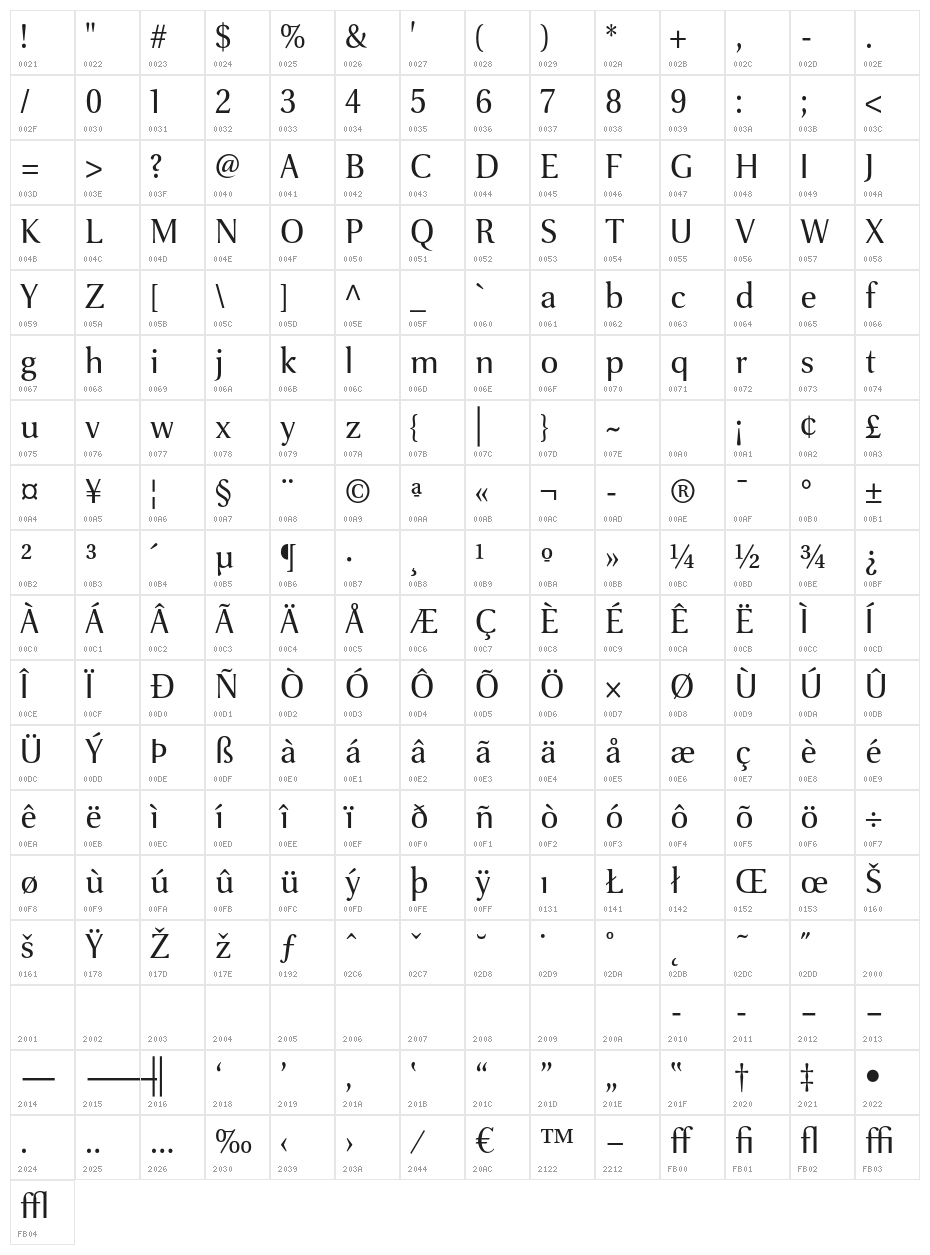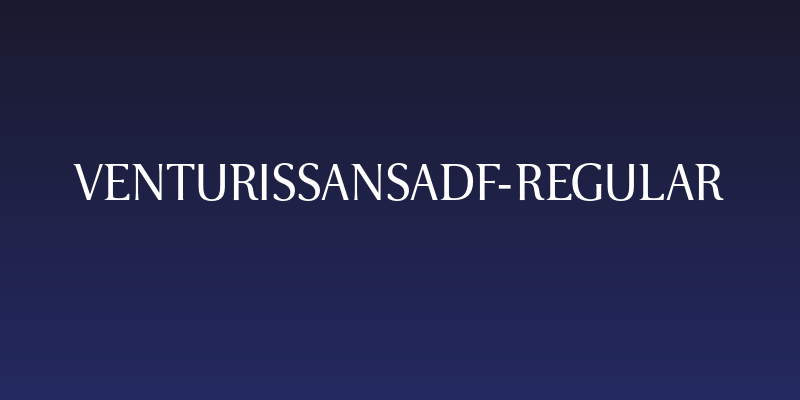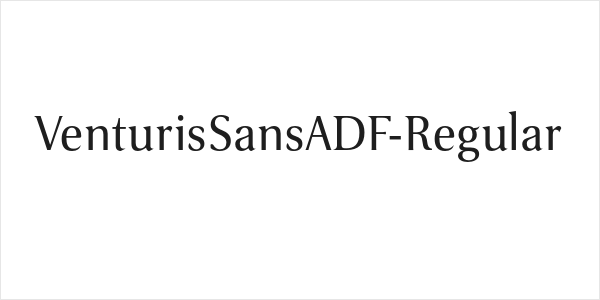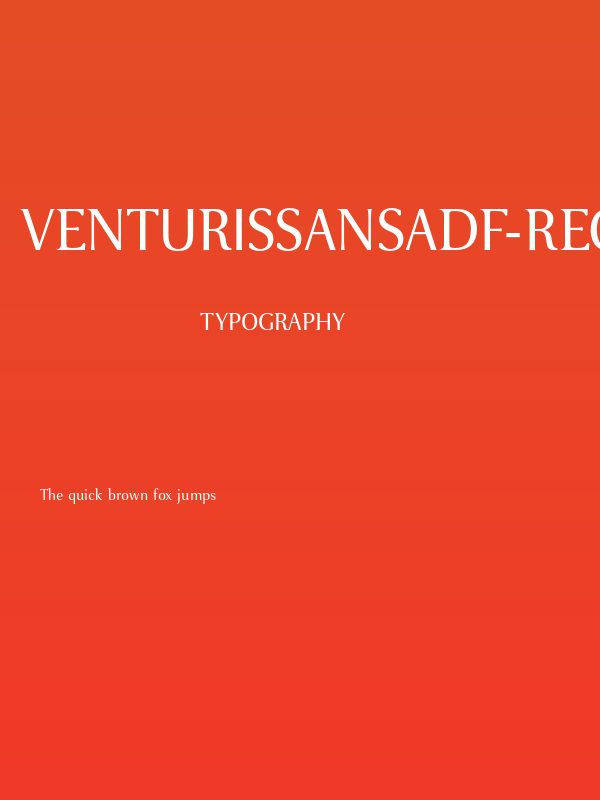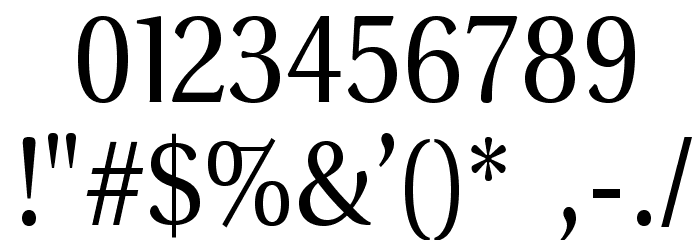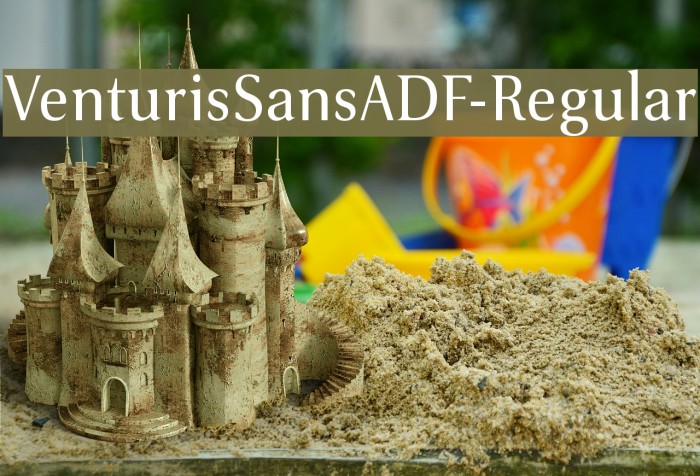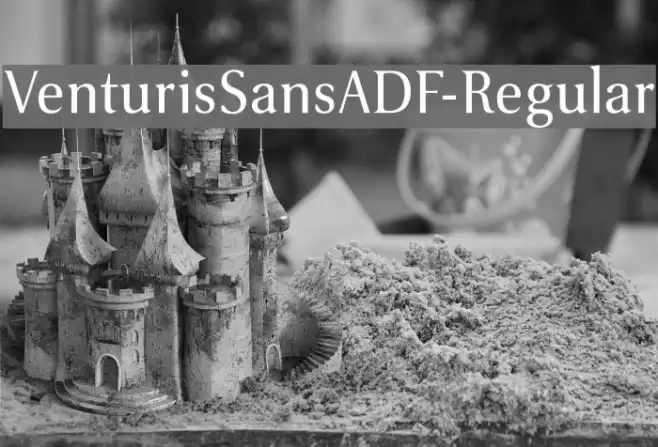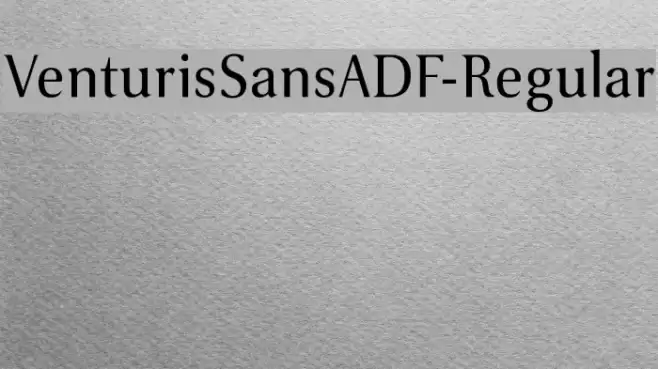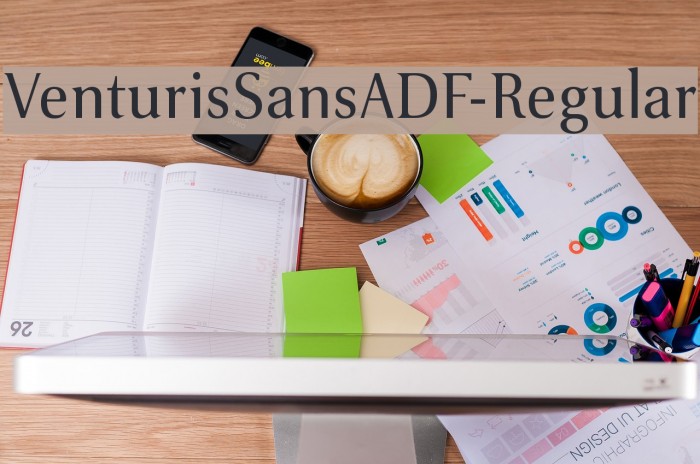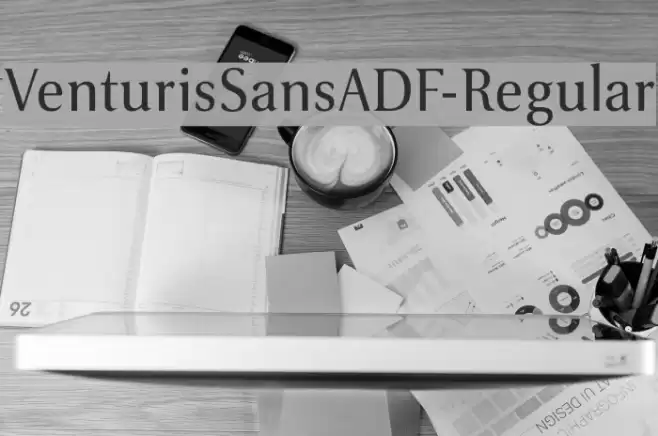
VenturisSansADF-Regular Font
VenturisSansADF-Regular Description
This font features a classic serif style with elegant, well-defined strokes that provide a sense of sophistication and readability. The uppercase letters are bold and commanding, while the lowercase letters maintain a graceful balance with slightly rounded edges. The numerals are clear and distinct, ensuring legibility in various contexts. Special characters are designed with precision, maintaining the overall aesthetic of the font. The font's structure is versatile, making it suitable for both formal and informal applications.
| Overall Style | Classic |
| Use Case | Headlines, Body text, Logos |
| Proposed Projects | Ideal for editorial design, book covers, formal invitations, and corporate branding. |